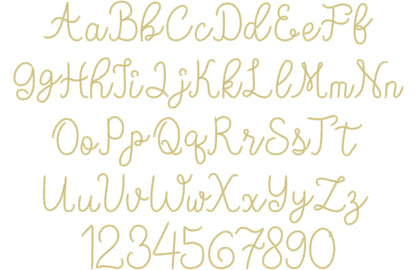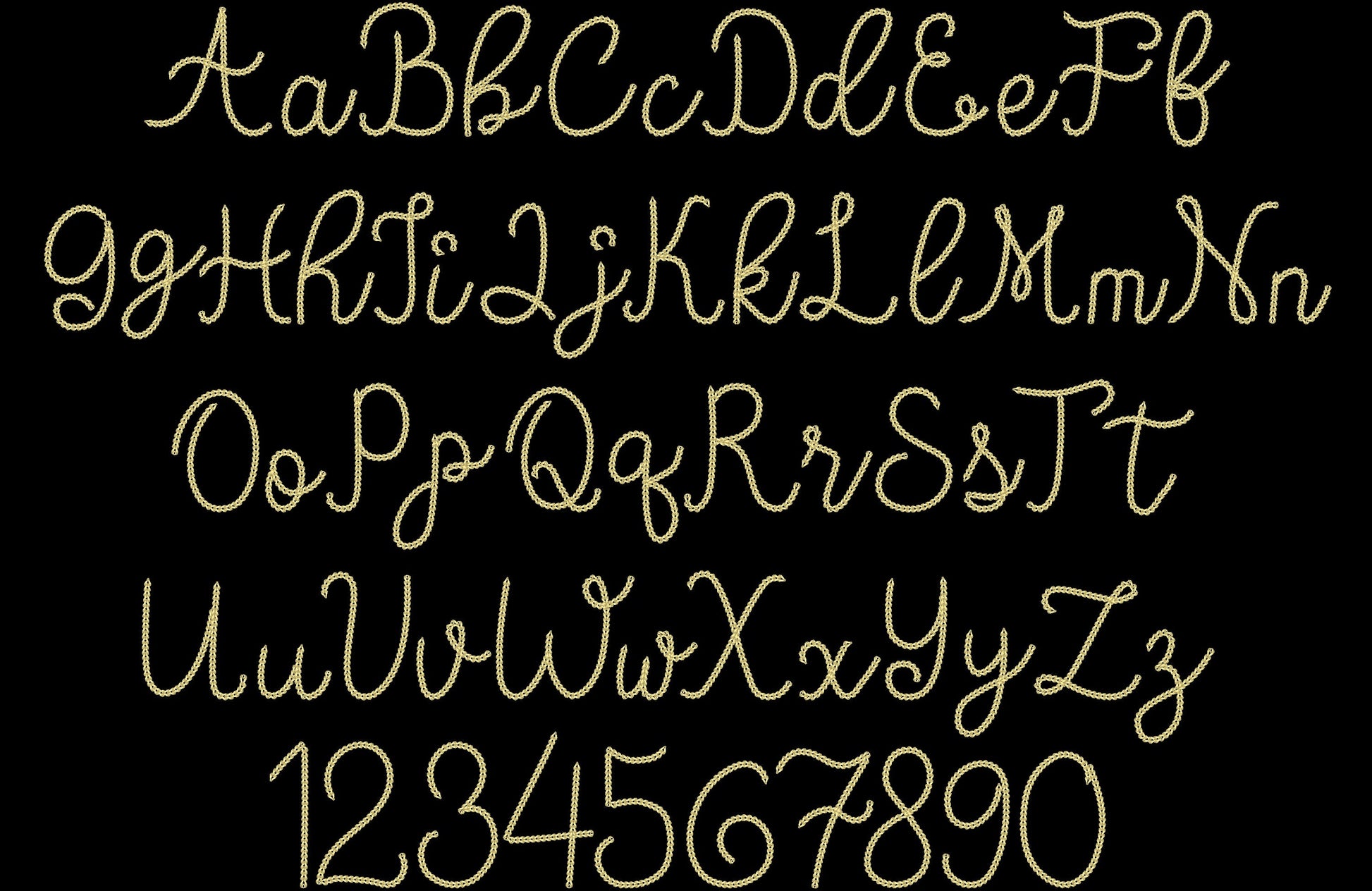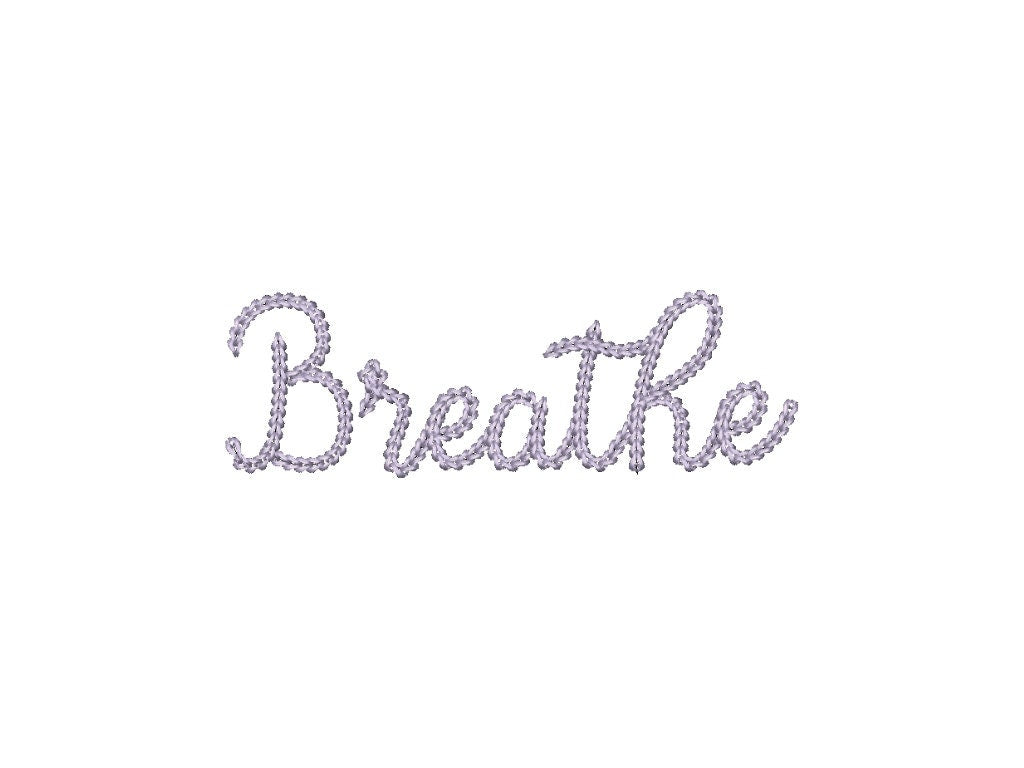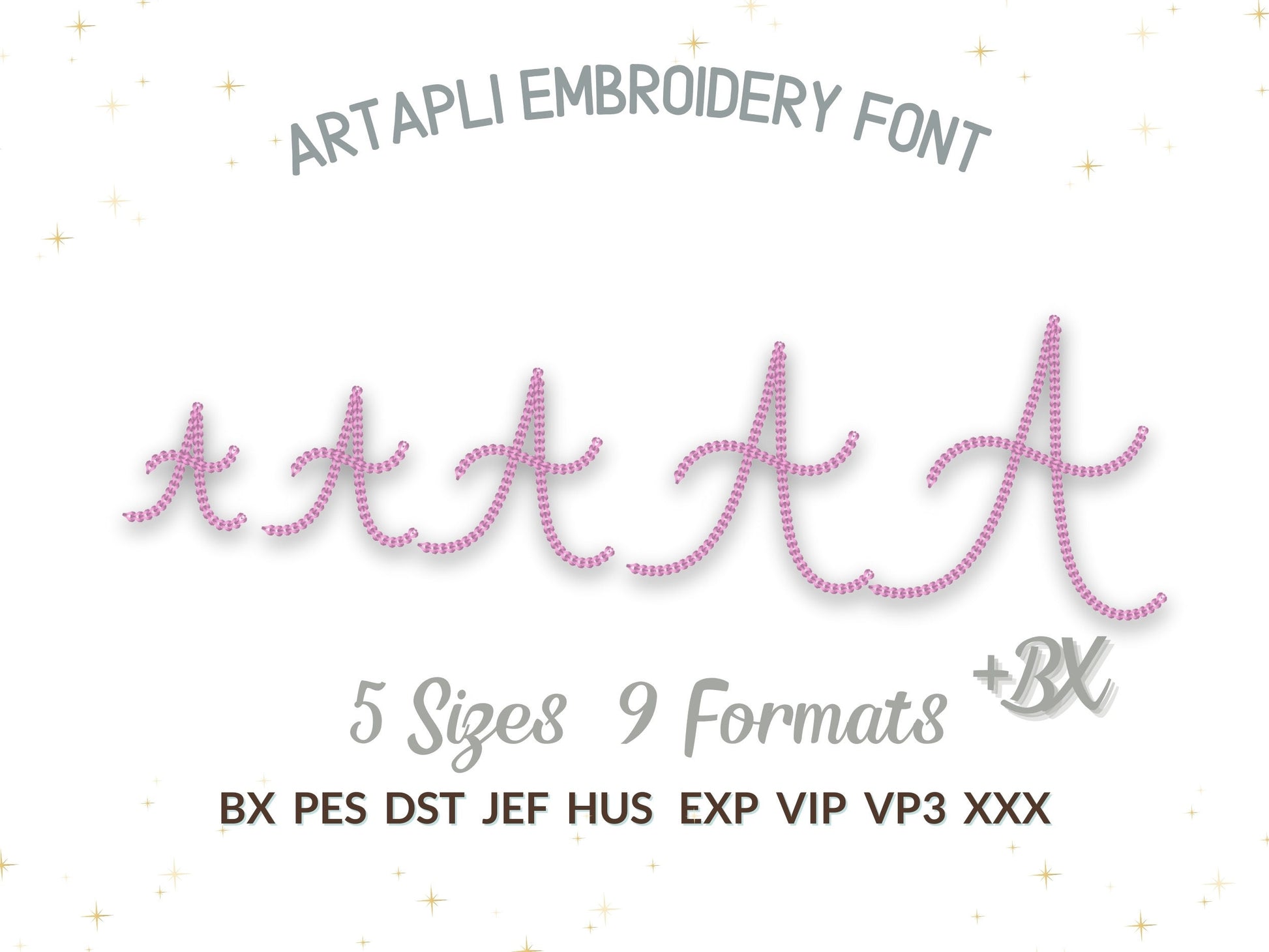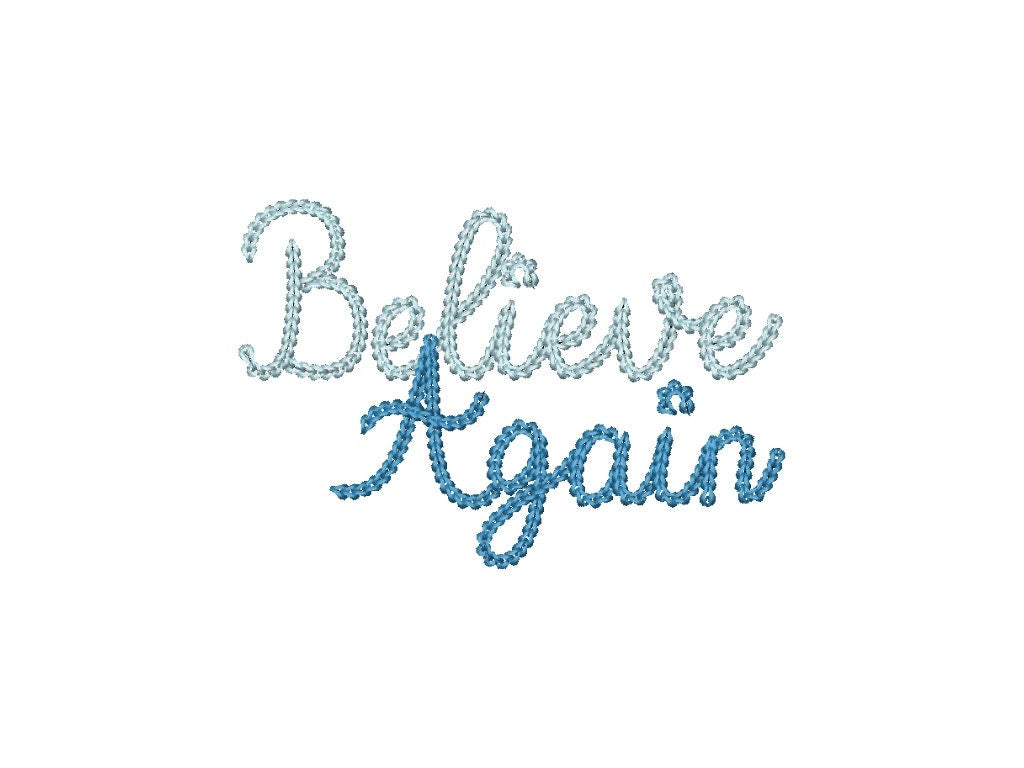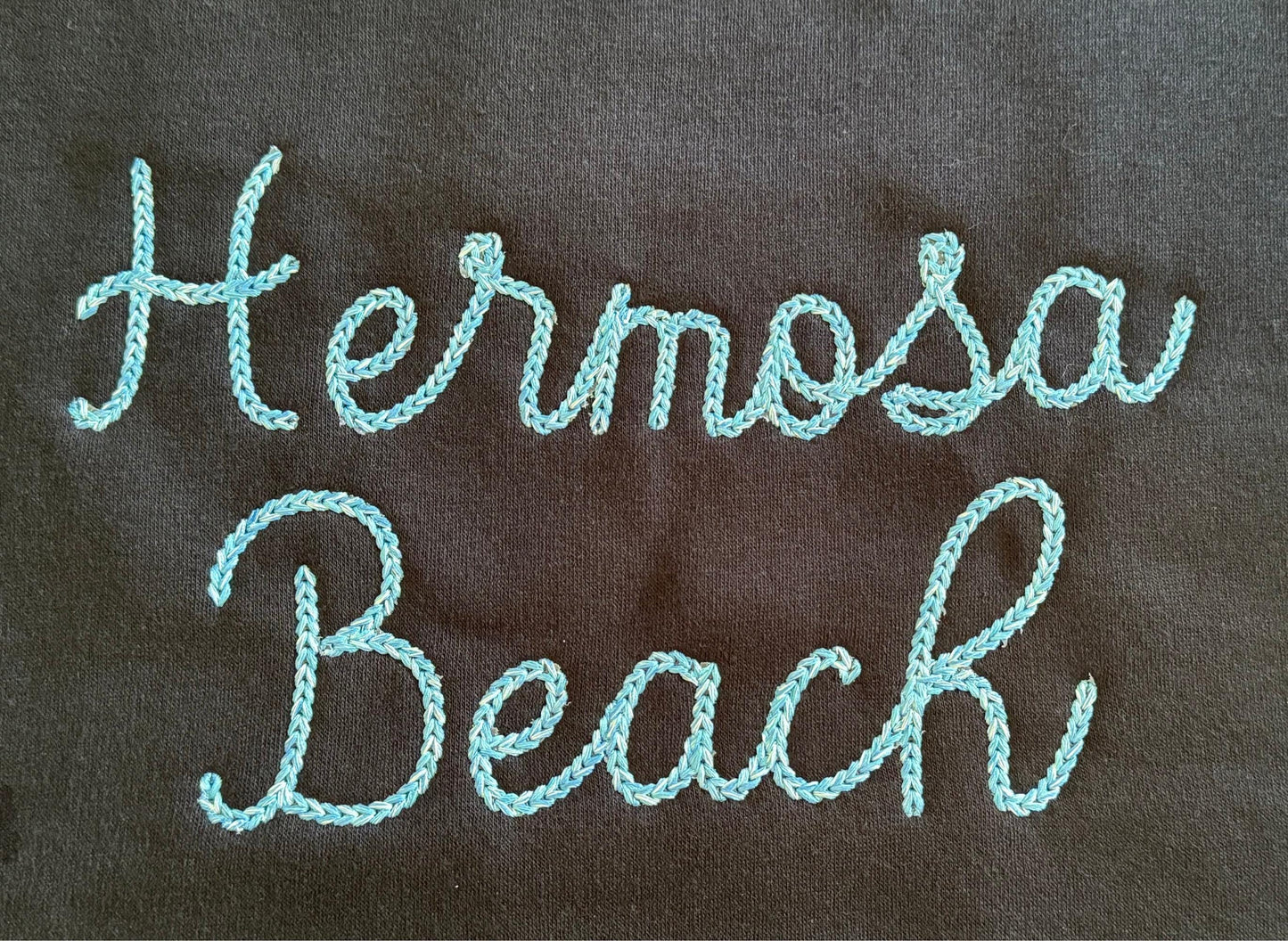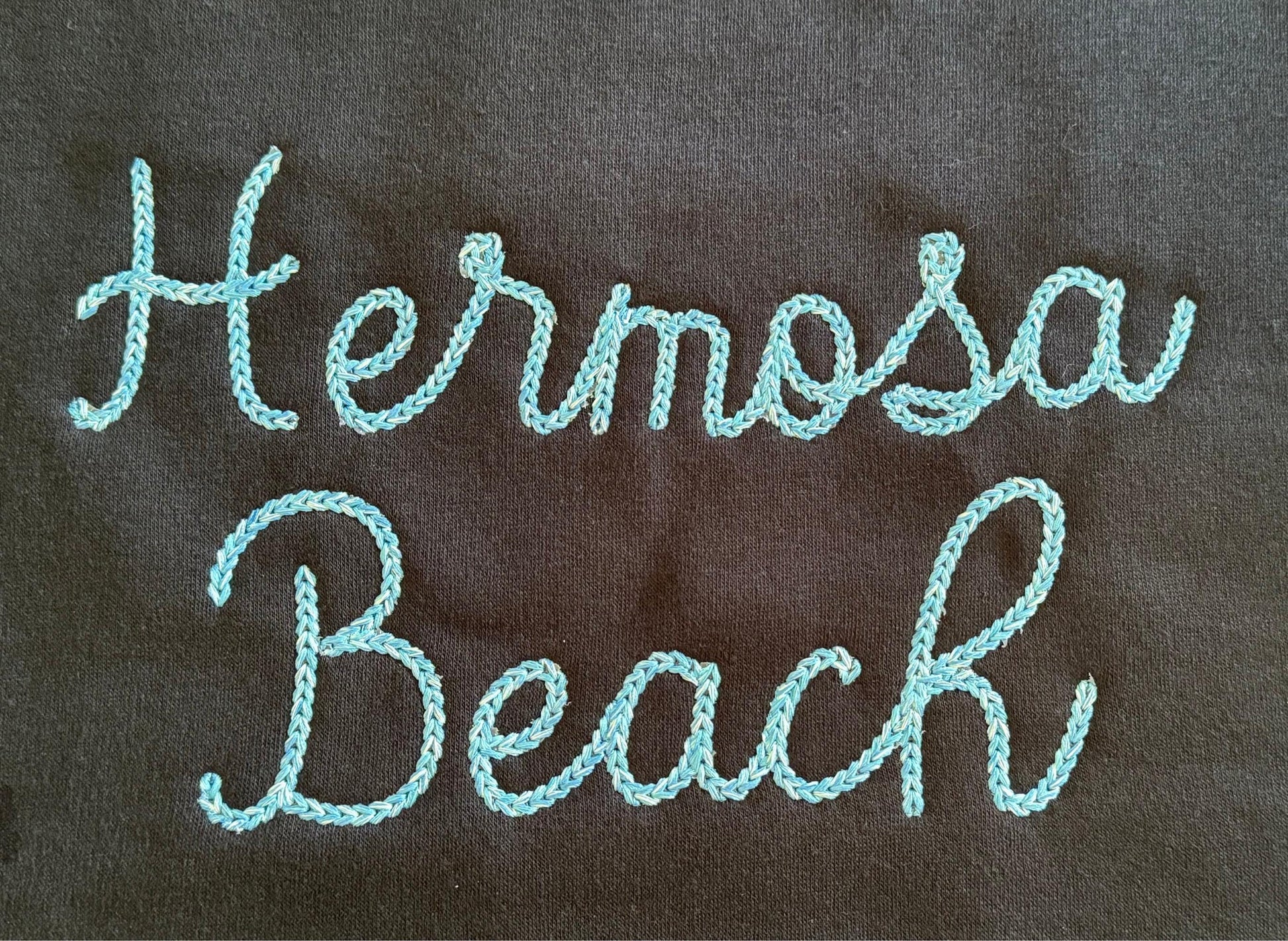
Or click to open the linkA dense, bold chain stitch script with a hand-knit sweater look, for names on sweaters, jackets and bags.
Uppercase and lowercase letters and numbers in five sizes: 2.2, 2.7, 3.4, 4.3 and 5 inches.